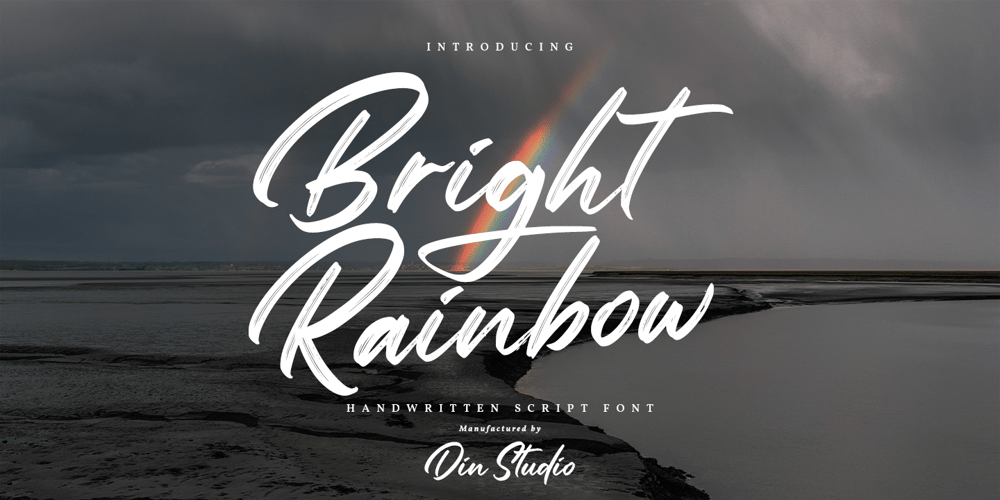
Bright Rainbow Font Family was designed by Donis Miftahudin and published by Din Studio. Bright Rainbow contains 1 styles and family package options. Bright Rainbow is a classy brush font. The brush combined with handwritten font will make your design project more beautiful. Made for any professional project branding. It is the best for logos, branding and quotes. Every letter has a unique and beautiful touch.Features: Multilingual Support PUA Encoded Numerals and Punctuation Thank you for downloading from Din Studio.